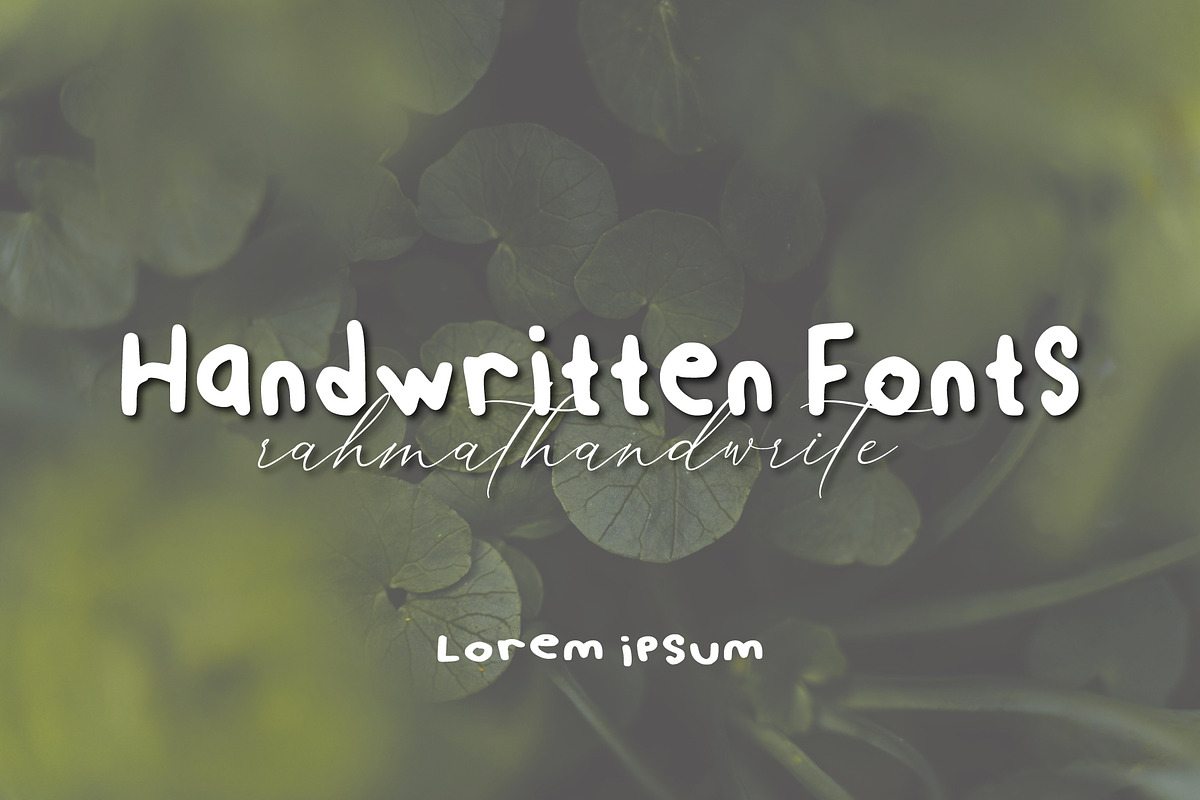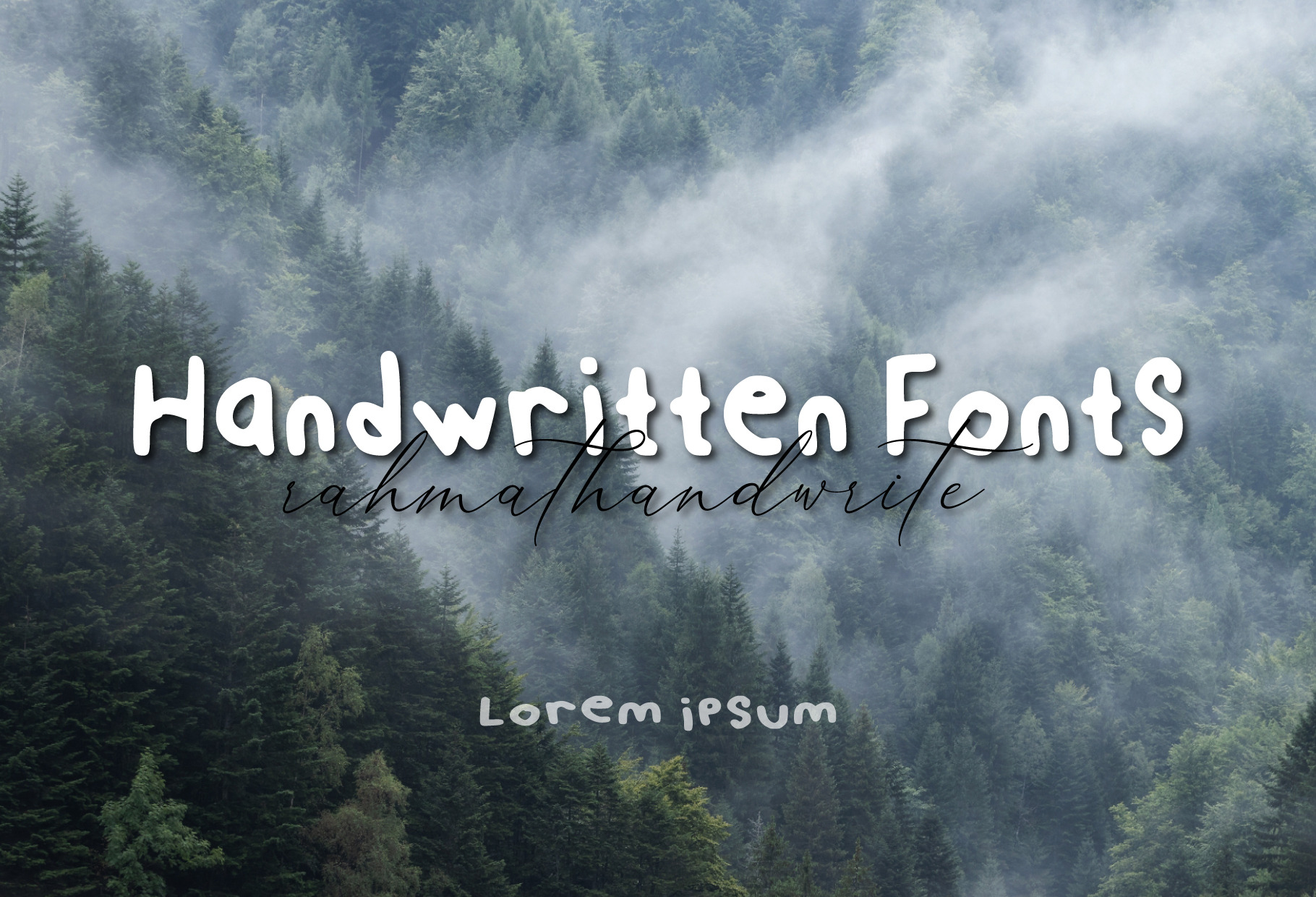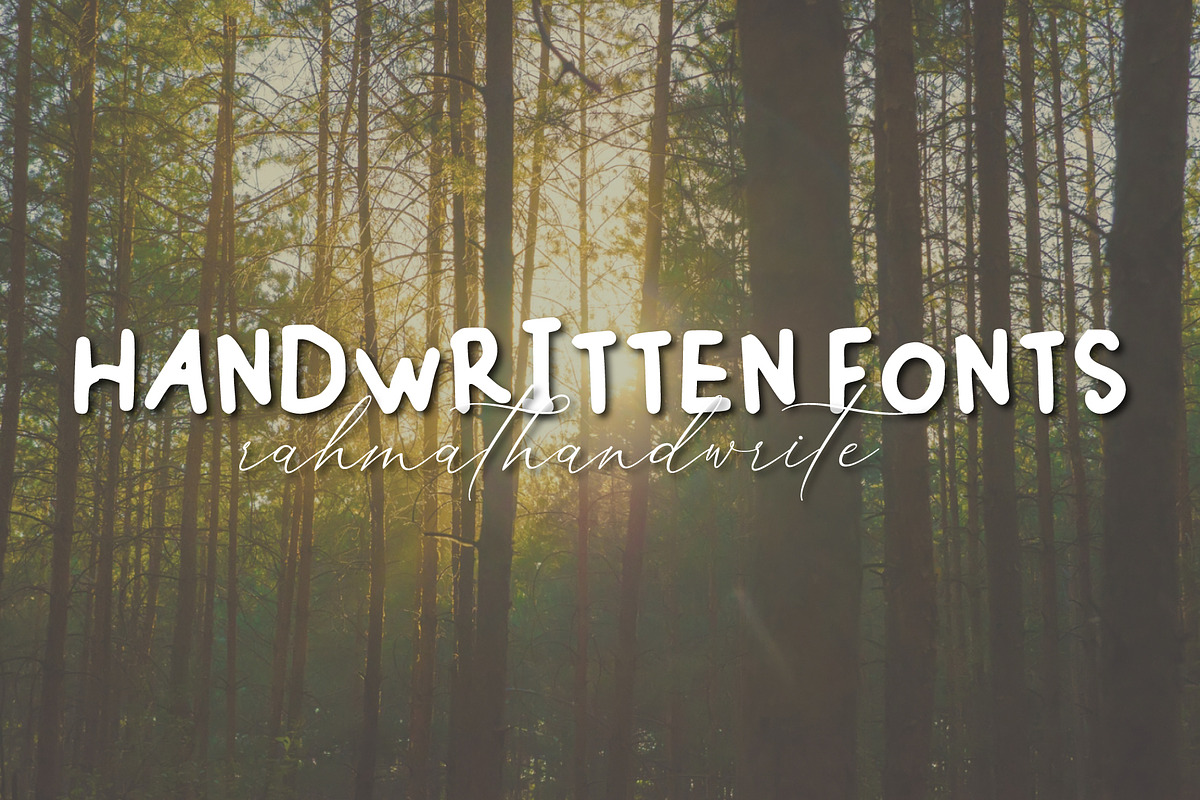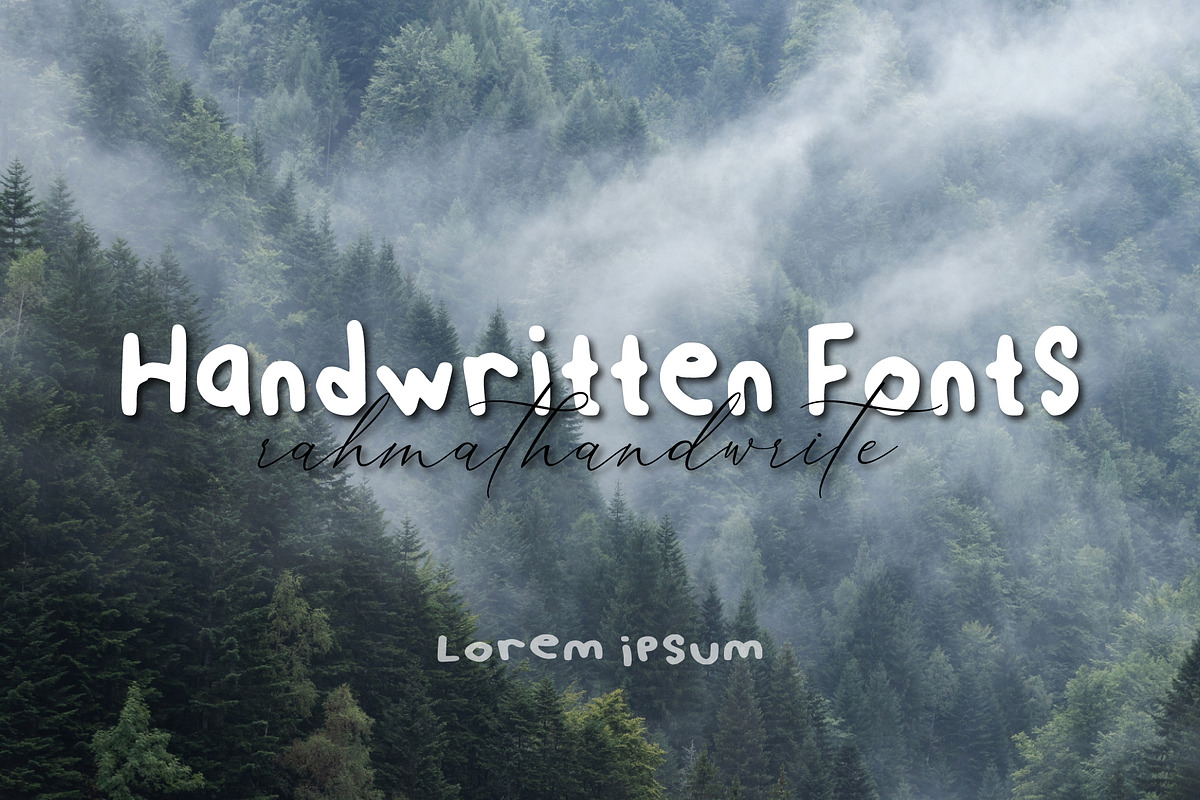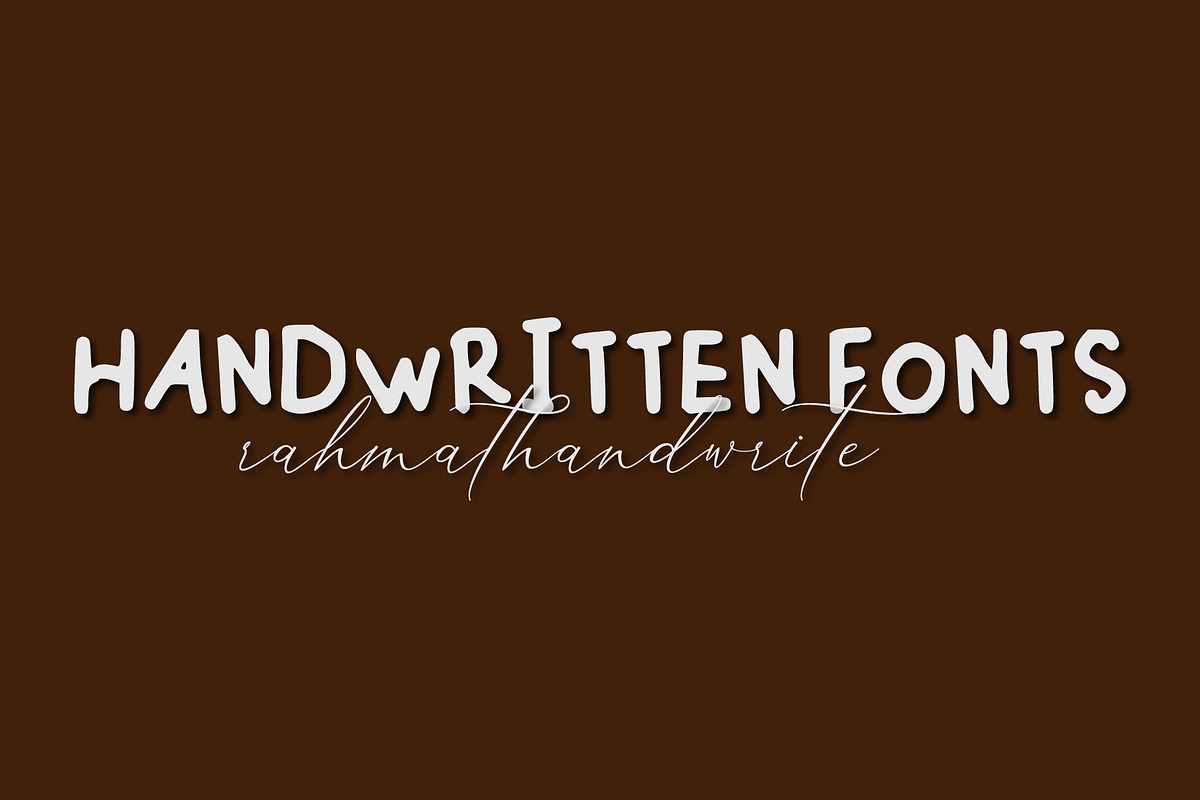
Handwritten Fonts
Handwritten Fonts Rahmat Handwrite is a stylish handwritten font perfect for creating modern, elegant, and aesthetic designs. Ideal for logos, branding, invitations, posters, and more, this versatile typeface combines natural flow with readability to enhance any creative project.